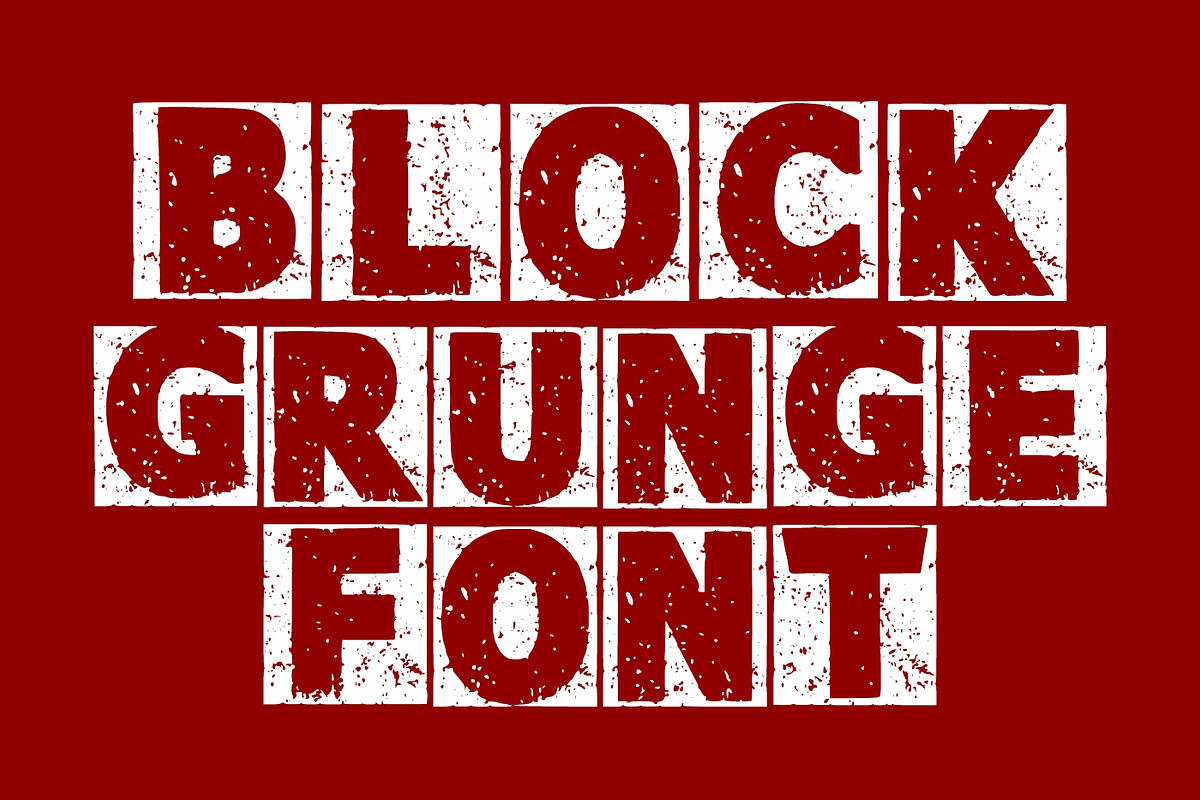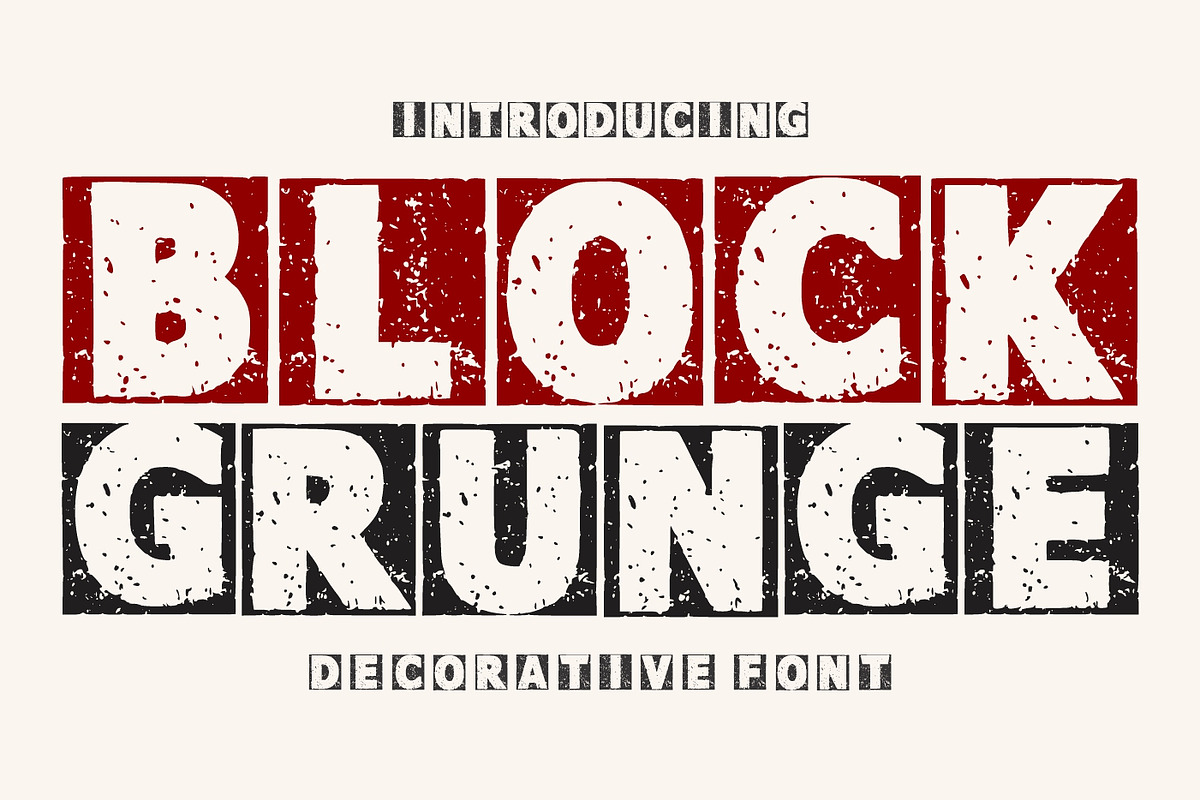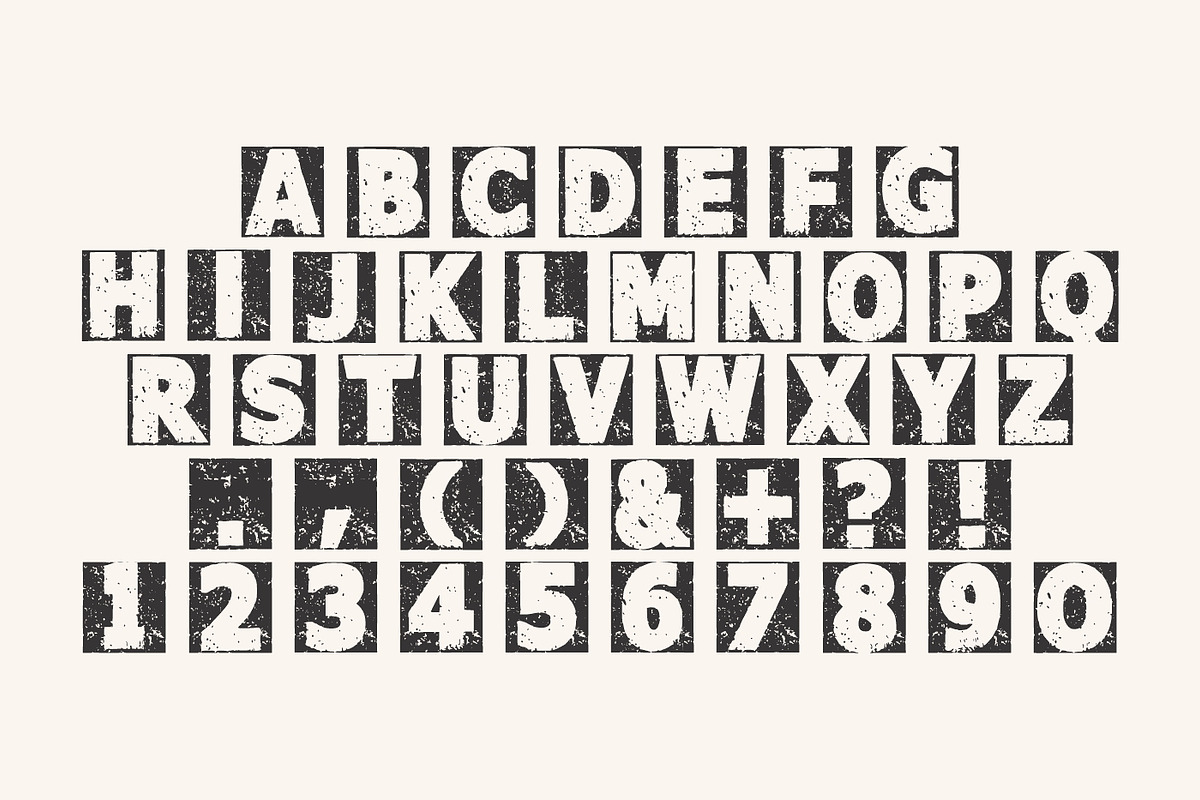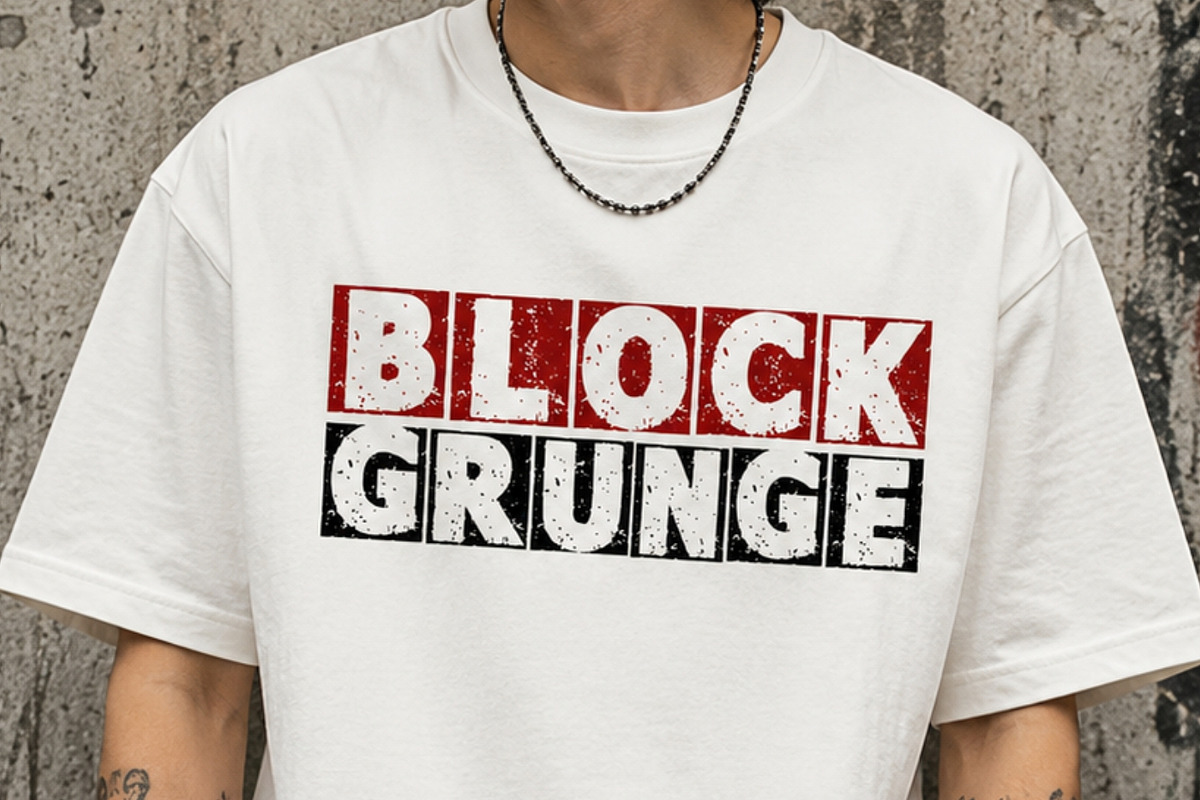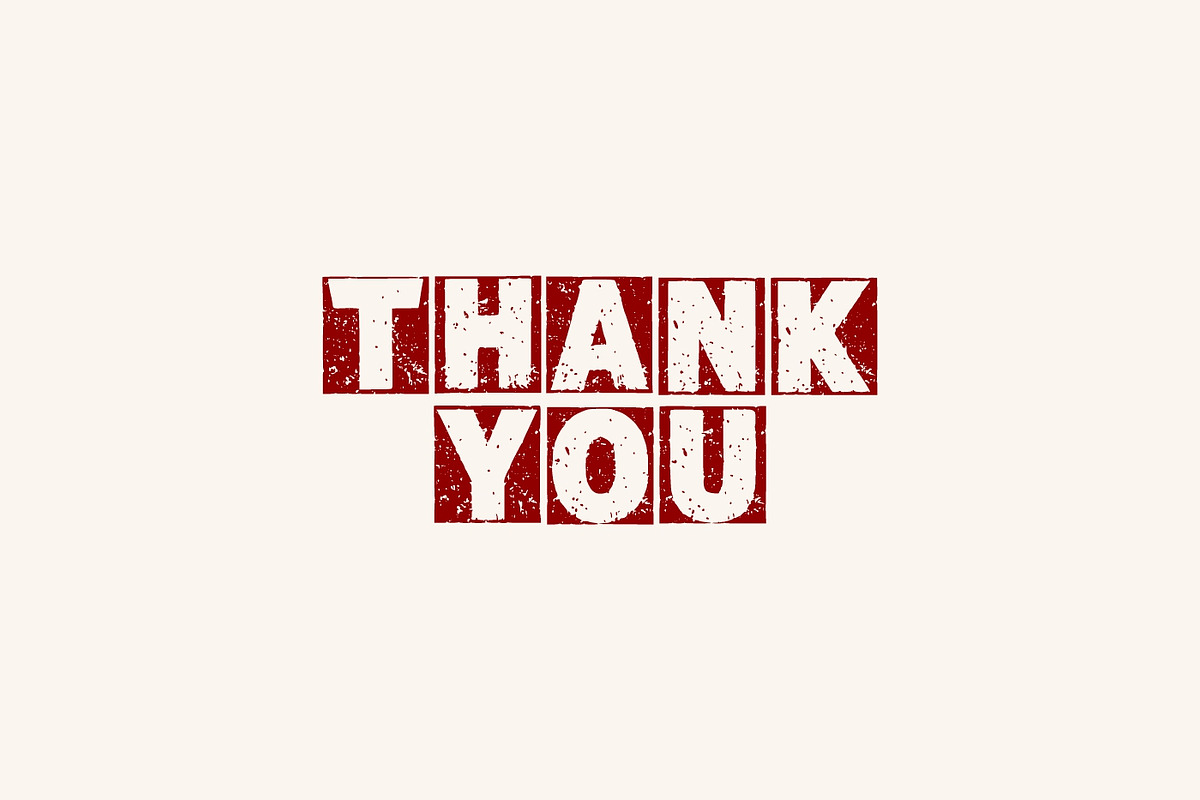
Block Grunge
Block Grunge is a bold decorative display font that combines strong block letterforms with authentic distressed textures to create a rugged, vintage-inspired look. Designed for designers who love industrial, urban, and retro aesthetics, this font delivers powerful typography that instantly captures attention. Every character features carefully crafted grunge details that mimic worn ink, weathered paint, and aged print effects, giving your projects an authentic handcrafted appearance.
Whether you’re designing eye-catching logos, branding materials, posters, album covers, packaging, apparel, stickers, or social media graphics, Block Grunge provides the perfect balance between bold readability and vintage character. Its heavy block style makes it ideal for large headlines and impactful titles, while the distressed finish adds depth and personality to every design.
This versatile font is perfect for streetwear brands, coffee shops, breweries, barbershops, adventure businesses, outdoor brands, sports graphics, YouTube thumbnails, Cricut and Silhouette projects, SVG cut files, invitations, book covers, and merchandise. It performs beautifully across both digital and print media, making it an essential addition to any creative font collection.